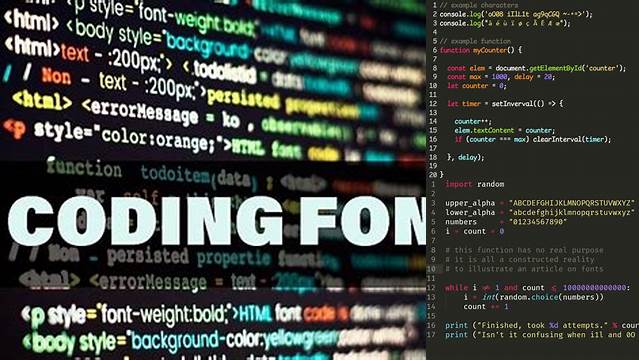
Font Programming Code: A Comprehensive Guide
Hey guys! Ever wondered how those beautiful fonts you see on your screen are actually created and rendered? It's all thanks to some clever font programming code! This guide dives deep into the world of font programming, exploring everything from the basics to more advanced techniques. So, buckle up and get ready to become a font guru!
Understanding Font Basics
Before we dive into the code, let's get a solid understanding of what fonts actually are. Basically, a font is a set of graphical representations of characters, numbers, and symbols. These representations are called glyphs. Think of each glyph as a tiny picture that makes up a letter or a number. Fonts are more than just how letters look; they're the very essence of how we communicate visually in the digital world. The design of a font can convey a multitude of emotions and tones, from serious and professional to playful and whimsical. When we talk about fonts programming code, we are delving into the intricate world of how these glyphs are defined, stored, and rendered on our screens. The journey from a designer's vision to the final product involves complex mathematical models, algorithms, and file formats that ensure the text we see is both legible and aesthetically pleasing. Without a solid grasp of font basics, understanding the underlying code becomes a daunting task. Therefore, let's start by exploring the fundamental concepts that make up the anatomy of a font.
What are Glyphs?
Glyphs are the fundamental building blocks of any font. Each glyph represents a character, number, or symbol. A glyph is essentially a visual representation, a small picture that conveys meaning. Think of the letter 'A' – the glyph for 'A' is the visual form we recognize. These glyphs are the very essence of typography. They aren't just simple images; they are precisely crafted shapes designed with mathematical accuracy to ensure consistent appearance and readability. Each glyph within a font family is designed to harmoniously coexist with the others, maintaining a cohesive visual style. The variations in glyph design – such as serifs, stroke thickness, and letter spacing – contribute significantly to the overall personality and readability of a font. Understanding glyphs is the first step in comprehending fonts programming code, as it's the manipulation and rendering of these glyphs that the code governs. The creation of a glyph involves meticulous detail, from the initial concept sketch to the final vector outline, and each step is crucial in achieving a high-quality typeface. When we look at a block of text, we are essentially looking at a collection of glyphs working together to convey a message. The artistry and technical skill involved in creating these glyphs are often overlooked, but they are the foundation of all written communication.
Font File Formats: TTF, OTF, and More
Font file formats are like the containers that hold all the information about a font, including glyph outlines, kerning, and other metadata. There are several popular formats, including TTF (TrueType Font), OTF (OpenType Font), and WOFF (Web Open Font Format). These formats dictate how fonts are stored and used on various platforms. Understanding font file formats is crucial for anyone delving into fonts programming code, as it determines how you interact with the font data. Each format has its own strengths and weaknesses, influencing compatibility, features, and file size. For instance, TrueType fonts, developed by Apple and Microsoft, are widely supported and use quadratic Bezier curves for glyph outlines. OpenType fonts, an extension of TrueType, offer more advanced typographic features and support both quadratic and cubic Bezier curves. Web Open Font Format (WOFF) is specifically designed for web use, employing compression techniques to reduce file sizes and improve loading times. When choosing a font format, developers must consider the target platform, required features, and performance implications. The format dictates how the glyphs are described – whether as vector outlines or bitmap images – and how the font's metadata, such as kerning pairs and hinting information, is stored. This knowledge is essential for anyone aiming to manipulate or create fonts programmatically, as the file format dictates the structure and interpretation of the font's data.
Vector vs. Raster Fonts
Fonts come in two main flavors: vector and raster. Vector fonts, like TrueType and OpenType, use mathematical equations to define glyph shapes, making them scalable without losing quality. Raster fonts, on the other hand, are made up of pixels and can become blurry when scaled. Vector fonts are the preferred choice for most applications due to their scalability and crisp appearance. When diving into fonts programming code, it's essential to understand the distinction between vector and raster fonts. Vector fonts, with their mathematically defined outlines, allow for precise scaling and rendering, making them ideal for diverse applications ranging from print to web. The use of Bezier curves and other mathematical constructs ensures that the glyphs maintain their shape and clarity regardless of the size at which they are displayed. This scalability is crucial for responsive design and cross-platform compatibility. Raster fonts, in contrast, are pixel-based images. While they can be useful for specific applications, such as retro-style graphics or low-resolution displays, their lack of scalability makes them less versatile than vector fonts. When raster fonts are scaled up, they often appear pixelated and blurry, losing the crispness and legibility of the original design. The choice between vector and raster fonts significantly impacts the rendering process and the complexity of the fonts programming code required. Vector fonts demand algorithms that interpret and render mathematical outlines, while raster fonts involve simpler pixel-by-pixel drawing techniques.
Setting Up Your Development Environment for Font Programming
Alright, let's get our hands dirty and set up our development environment! Depending on what you want to do with font programming code, you might need different tools and libraries. Choosing the right tools can make the process much smoother and more efficient. Setting up the development environment for fonts programming code is a crucial first step in any font-related project. The tools and libraries you select will significantly impact your ability to create, manipulate, and render fonts effectively. For those interested in low-level font manipulation, programming languages like C++ or Rust, coupled with libraries like FreeType, are excellent choices. These tools provide fine-grained control over glyph rendering and font file parsing. If you're more inclined towards web development, JavaScript libraries such as opentype.js and typeface.js offer robust capabilities for loading and displaying fonts within web browsers. The environment should also include a suitable text editor or IDE (Integrated Development Environment) with syntax highlighting and debugging features. For tasks like font creation and editing, specialized font editors such as FontForge or Glyphs are indispensable. These editors offer a graphical interface for designing glyphs, adjusting kerning, and managing font metadata. Furthermore, it's important to consider the target platform and the specific requirements of your project when setting up the development environment. Whether you're working on a desktop application, a web service, or a mobile app, the tools and techniques you employ will vary. A well-configured development environment streamlines the workflow and enhances the overall coding experience, making the intricate world of fonts programming code more accessible and enjoyable.
Choosing a Programming Language (C++, Python, etc.)
The choice of programming language is a big one! C++ is a popular choice for its performance and low-level control, while Python is great for rapid prototyping and scripting. Other languages like Rust and JavaScript are also viable options. Each language has its pros and cons for font programming code. Choosing a programming language for fonts programming code is a pivotal decision that hinges on factors like project requirements, performance expectations, and personal expertise. C++, known for its speed and efficiency, is frequently used in font rendering engines and libraries, providing low-level control over system resources. This makes it ideal for applications where performance is paramount, such as game development and desktop publishing software. Python, on the other hand, excels in rapid prototyping and scripting, offering a wealth of libraries for font manipulation and data processing. Its clear syntax and extensive community support make it a favorite for research and development projects. Rust, a modern systems programming language, combines the performance of C++ with memory safety and concurrency features, making it an attractive option for building robust and reliable font tools. For web-based applications, JavaScript, coupled with libraries like opentype.js, allows for dynamic font loading and rendering within browsers. The choice of language should align with the specific tasks you intend to perform, whether it's parsing font files, generating glyphs, or implementing complex typographic features. Understanding the strengths and weaknesses of each language will enable you to make an informed decision and embark on your fonts programming code journey with confidence.
Installing Necessary Libraries (FreeType, opentype.js, etc.)
Libraries are your best friends when it comes to programming! FreeType is a powerful library for rendering fonts, while opentype.js is perfect for working with fonts in JavaScript. These libraries provide ready-made functions for handling fonts programming code. Installing the necessary libraries is a crucial step in setting up your environment for fonts programming code. These libraries provide pre-built functions and tools that streamline the process of font rendering, manipulation, and analysis. FreeType, a widely used open-source library, supports a variety of font formats, including TrueType, OpenType, and PostScript. It offers comprehensive APIs for accessing glyph data, applying hinting, and rendering text. Installing FreeType often involves using a package manager specific to your operating system, such as apt on Linux or Homebrew on macOS. For web development, opentype.js is an indispensable JavaScript library that enables parsing and rendering OpenType fonts in the browser. It allows developers to load font files, extract glyph outlines, and dynamically create text layouts. Installing opentype.js is typically done using npm (Node Package Manager) or yarn. Other libraries, such as FontForge for font editing or harfbuzz for text shaping, may also be required depending on the specific goals of your project. The process of installing these libraries usually involves following the instructions provided in their documentation, which may include downloading source code, compiling binaries, or using package managers. Ensuring that these libraries are correctly installed and configured is essential for effectively working with fonts programming code and building font-related applications.
Setting Up a Font Editor (FontForge, Glyphs, etc.)
Font editors are specialized tools for designing and editing fonts. FontForge is a free and open-source option, while Glyphs is a popular commercial choice. These editors give you a visual way to create and modify font programming code. Setting up a font editor is a pivotal step for anyone involved in designing or manipulating fonts. These specialized tools provide a graphical interface for creating, editing, and managing glyphs, kerning pairs, and other essential font attributes. FontForge, a free and open-source option, is a powerful and versatile choice, offering a wide array of features for font design and editing. It supports various font formats, including TrueType, OpenType, and PostScript, and provides tools for drawing glyphs, applying hinting, and generating font files. Installing FontForge typically involves downloading the appropriate package for your operating system and following the installation instructions. Glyphs, a commercial font editor, is renowned for its user-friendly interface and advanced features. It streamlines the font design process with its intuitive tools for drawing glyphs, managing spacing and kerning, and generating high-quality fonts. Setting up Glyphs involves purchasing a license and downloading the application from the official website. Other font editors, such as RoboFont and BirdFont, also offer unique features and capabilities. The choice of font editor often depends on individual preferences, budget, and specific project requirements. Regardless of the editor selected, mastering its tools and workflows is essential for effectively working with fonts programming code and bringing your typographic visions to life.
Diving into Font Structures and Data
Now that we have our tools set up, let's dive into the nitty-gritty of font structures and data. Understanding how fonts are organized internally is key to manipulating them programmatically. Delving into font structures and data is akin to dissecting a complex machine to understand its inner workings. For those engaged in fonts programming code, this exploration is essential for manipulating, rendering, and creating fonts effectively. Fonts are not merely collections of glyph images; they are intricate data structures containing a wealth of information about the shapes, spacing, and stylistic attributes of characters. The internal structure of a font file, such as a TrueType or OpenType font, comprises various tables that store glyph outlines, kerning pairs, hinting instructions, and metadata. Each table serves a specific purpose, and understanding their organization is crucial for accessing and modifying font data. Glyphs, the visual representations of characters, are typically defined as vector outlines using Bezier curves. The font file stores the coordinates of these curves, along with instructions for how they should be rendered. Kerning pairs define the spacing adjustments between specific character combinations to improve readability and aesthetics. Hinting instructions are crucial for ensuring that glyphs render clearly at small sizes on low-resolution displays. By dissecting these structures and understanding how the data is encoded, developers can programmatically manipulate fonts, add new features, and optimize their rendering performance. This deep dive into font internals unlocks a world of possibilities for fonts programming code, from creating custom typefaces to building advanced text layout engines.
Combining Characters into Single Glyphs (Ligatures)
Ligatures are those fancy combined characters like